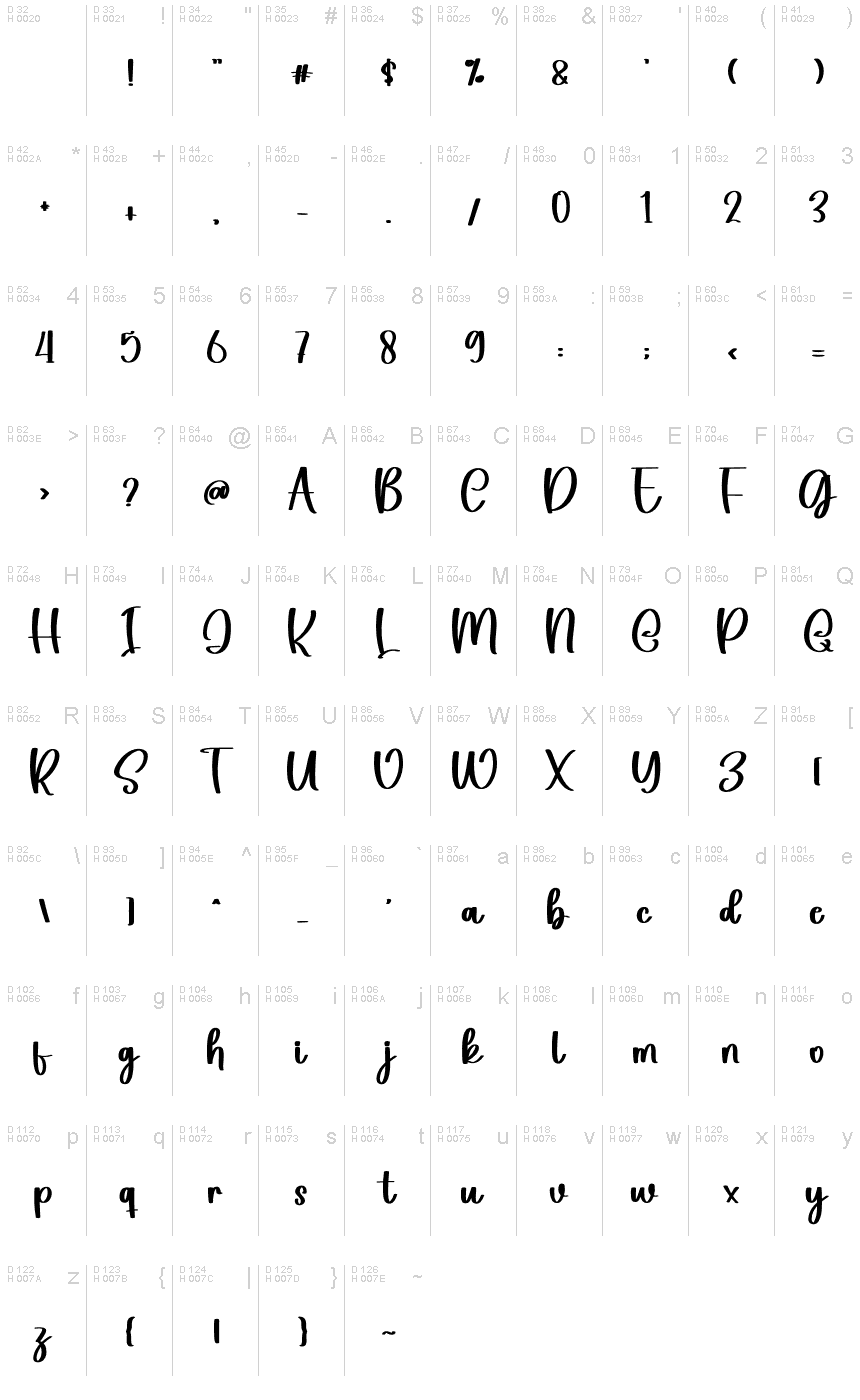
And You
And You, a handwritten font crafted by Inermedia Studio, exudes a personal and intimate charm that captivates at first glance. Its fluidity and organic form convey a sense of authenticity, making it an exceptional choice for projects seeking to establish a connection through a personal touch. The casual elegance of And You is underpinned by its variable stroke weight and subtly playful baseline, characteristics that lend themselves to designs aiming for warmth and approachability.
The aesthetic appeal of And You lies in its balance between legibility and artistic flair. It's perfect for invitations, branding, advertising materials, or any creative endeavor that benefits from the look and feel of human touch. Whether you're crafting heartfelt messages on greeting cards or establishing a unique voice for your brand identity, And You brings an artisanal quality to your work with the ease of digital precision.